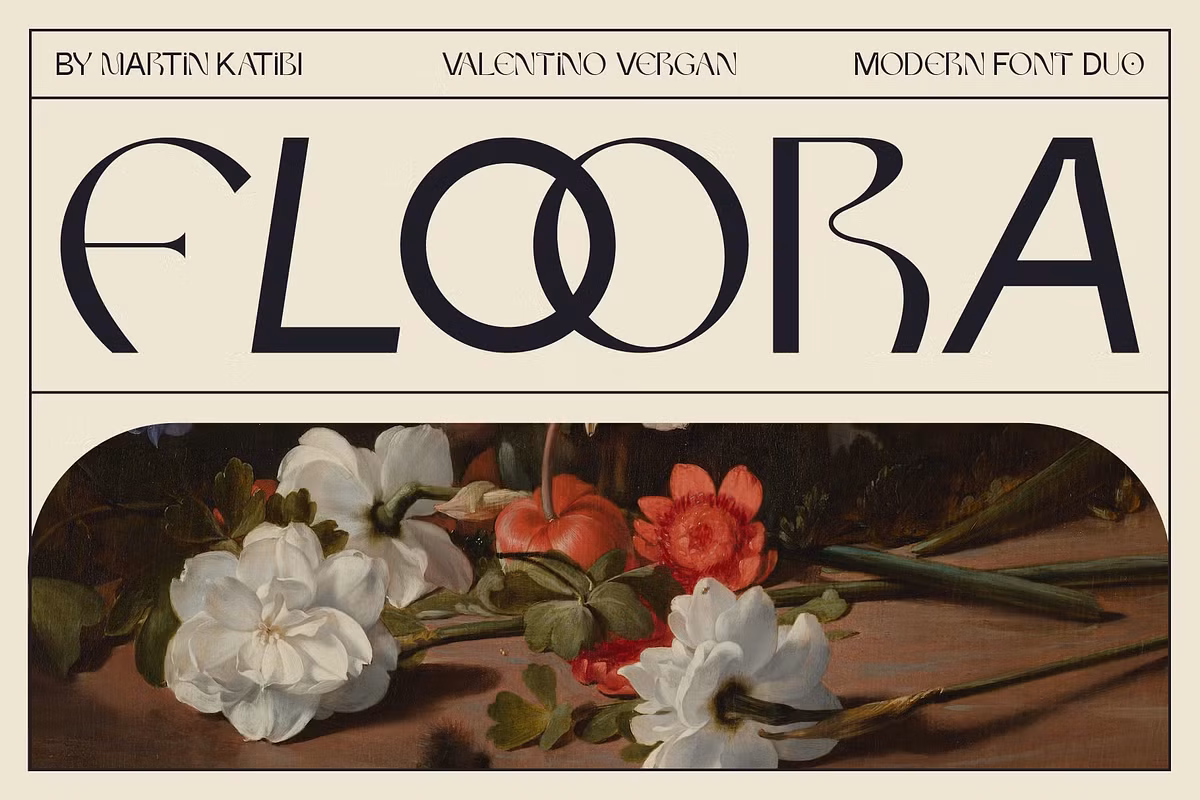
Floora – Modern Font Duo Free Download is a chic and versatile typeface pair that blends elegant serif and clean sans-serif styles in perfect harmony. Please note: you must purchase this font for commercial use, but you can test it through a free download. Designed for high-end branding, editorials, social media, and lifestyle packaging, Floora adds sophistication and balance to any layout.
This modern font duo gives you the freedom to mix strong headlines with refined body text, allowing you to create polished and professional designs with ease. Whether you're building a brand identity, designing wedding stationery, or crafting a fashion-forward lookbook, Floora – Modern Font Duo Free Download provides the flexibility and style you need. Fully compatible with Adobe Illustrator, Photoshop, Canva, and more. Download it today for personal use and let Floora bring effortless elegance to your next project.